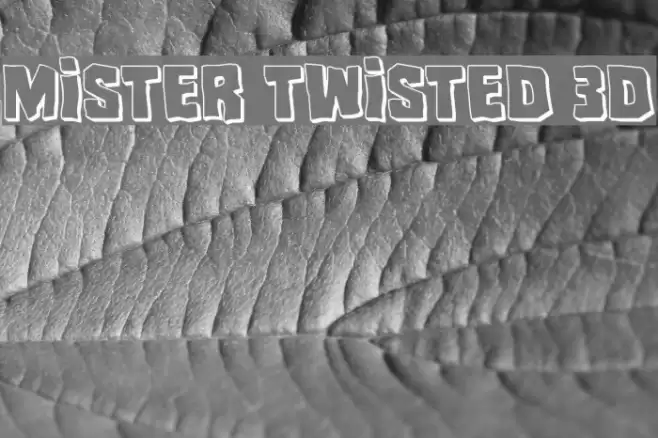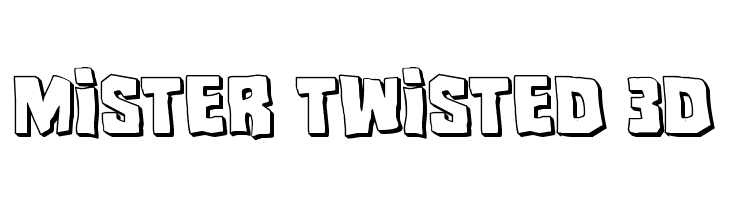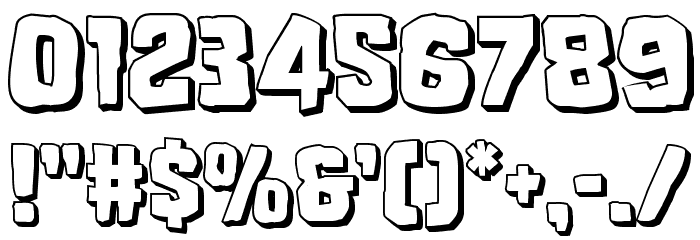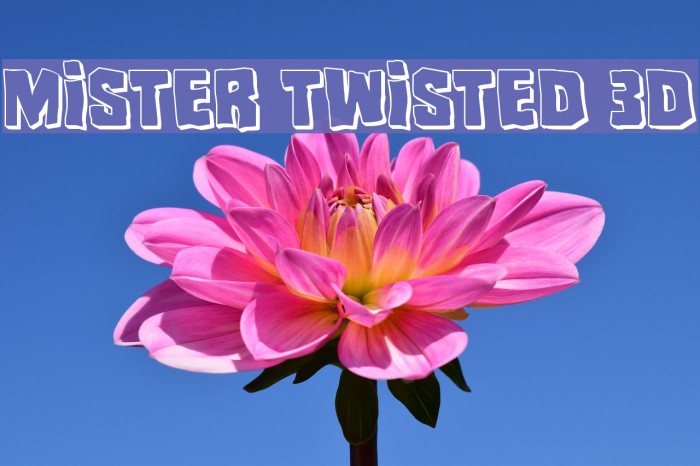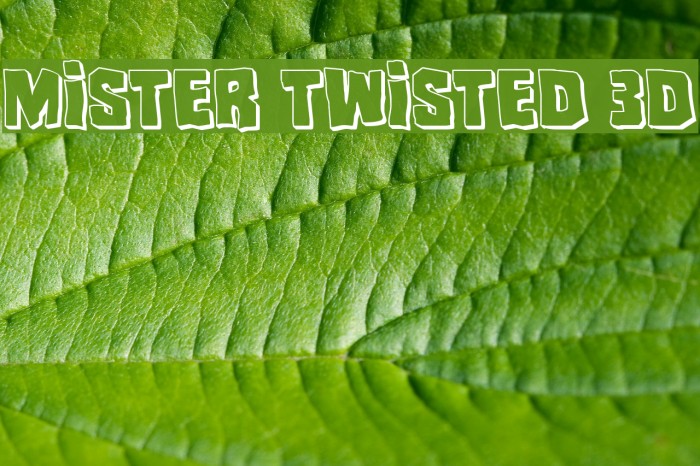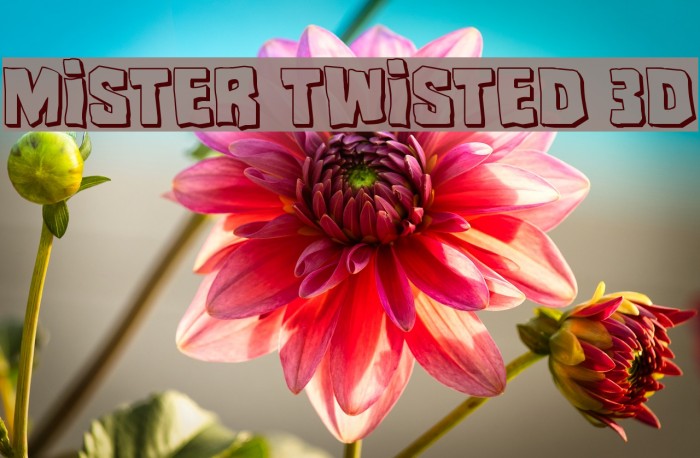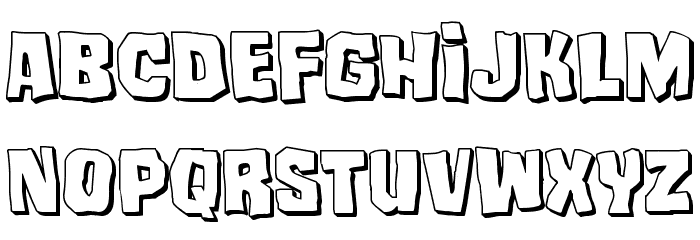
Mister Twisted 3D Font
Mister Twisted 3D Description
This font features a bold, three-dimensional style with a playful and cartoonish appearance. The letters are outlined with a thick black border, giving them a strong presence and making them stand out. The characters have a slightly irregular shape, adding to their whimsical and fun nature. This font is perfect for designs that require a lively and energetic feel. The numbers and special characters maintain the same bold and dynamic style, ensuring consistency across all elements.
A bold, 3D cartoonish font with thick outlines and playful character shapes from Uncategorized fonts.
- Proposed Projects: Ideal for comic books, children's book covers, playful branding, and eye-catching posters.
- Overall Style: Playful, Cartoonish, Bold
- Use Case: Headlines, Posters, Branding